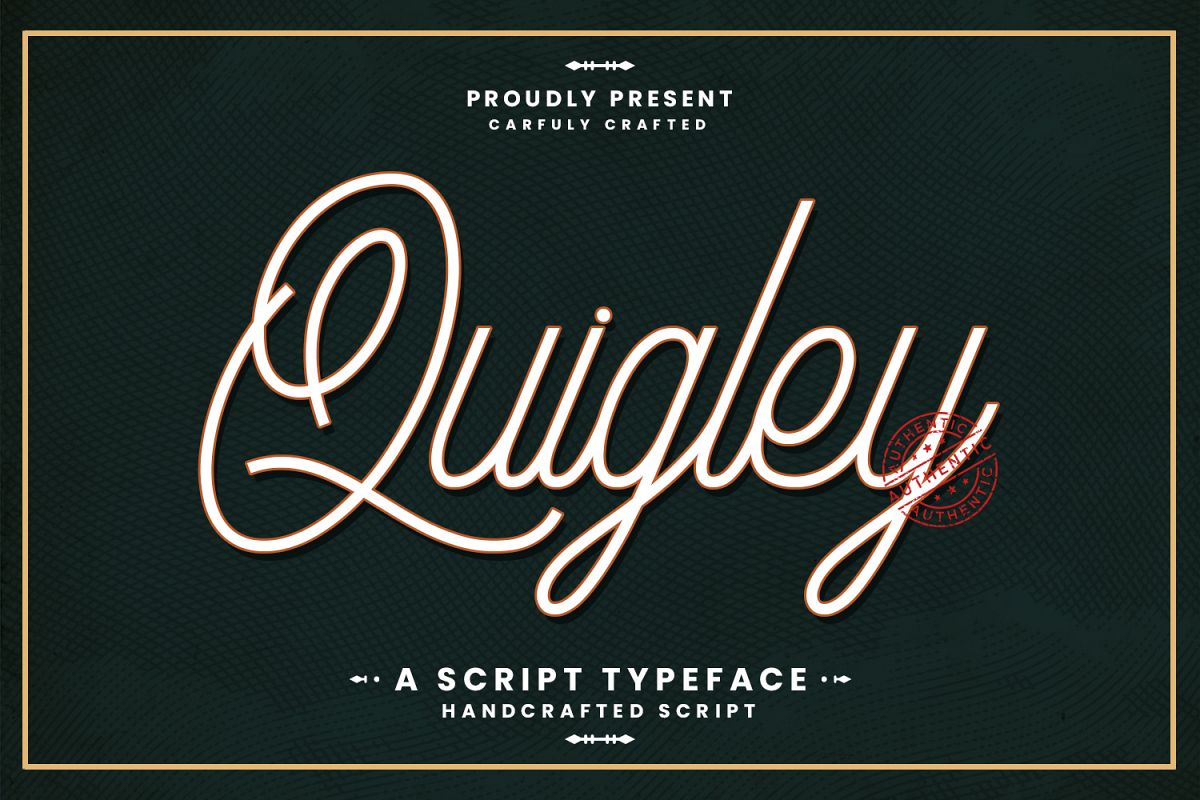
Quigley
Quigley is a Script typeface. This font perfectly made to be applied especially in logo, and the other various formal forms such as invitations, labels, logos, magazines, books, greeting / wedding cards, packaging, fashion, make up, stationery, novels, labels or any type of advertising purpose and many more.